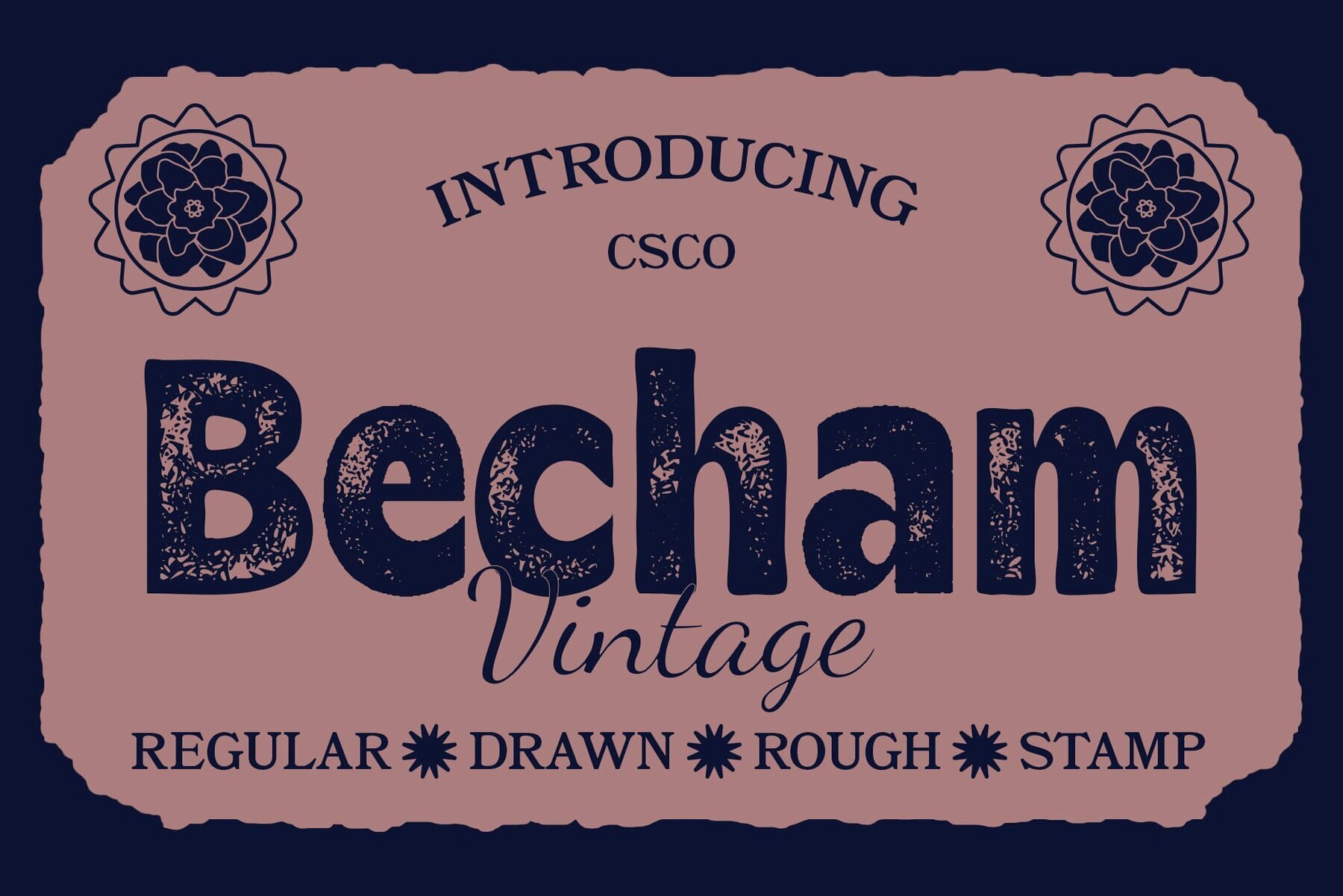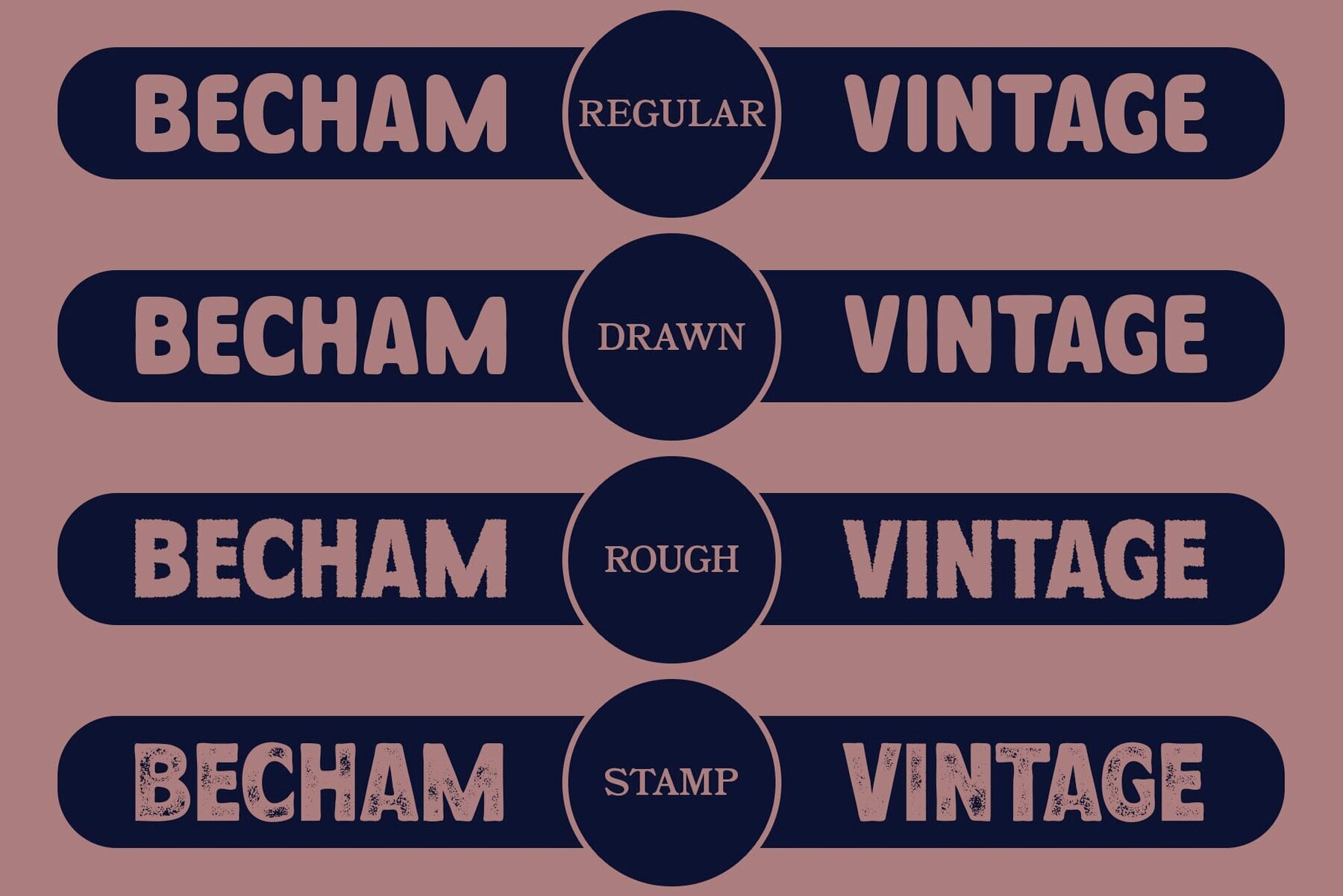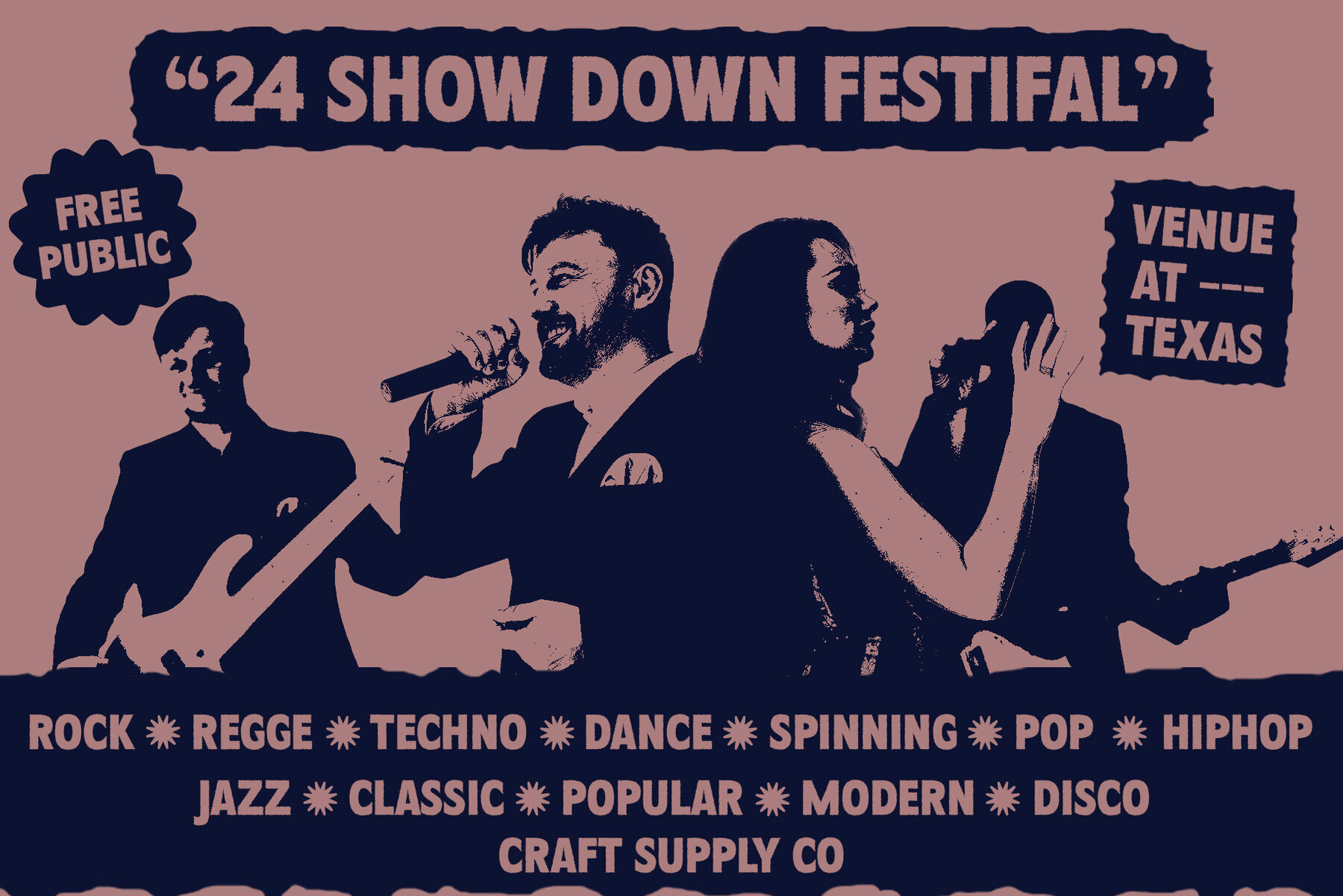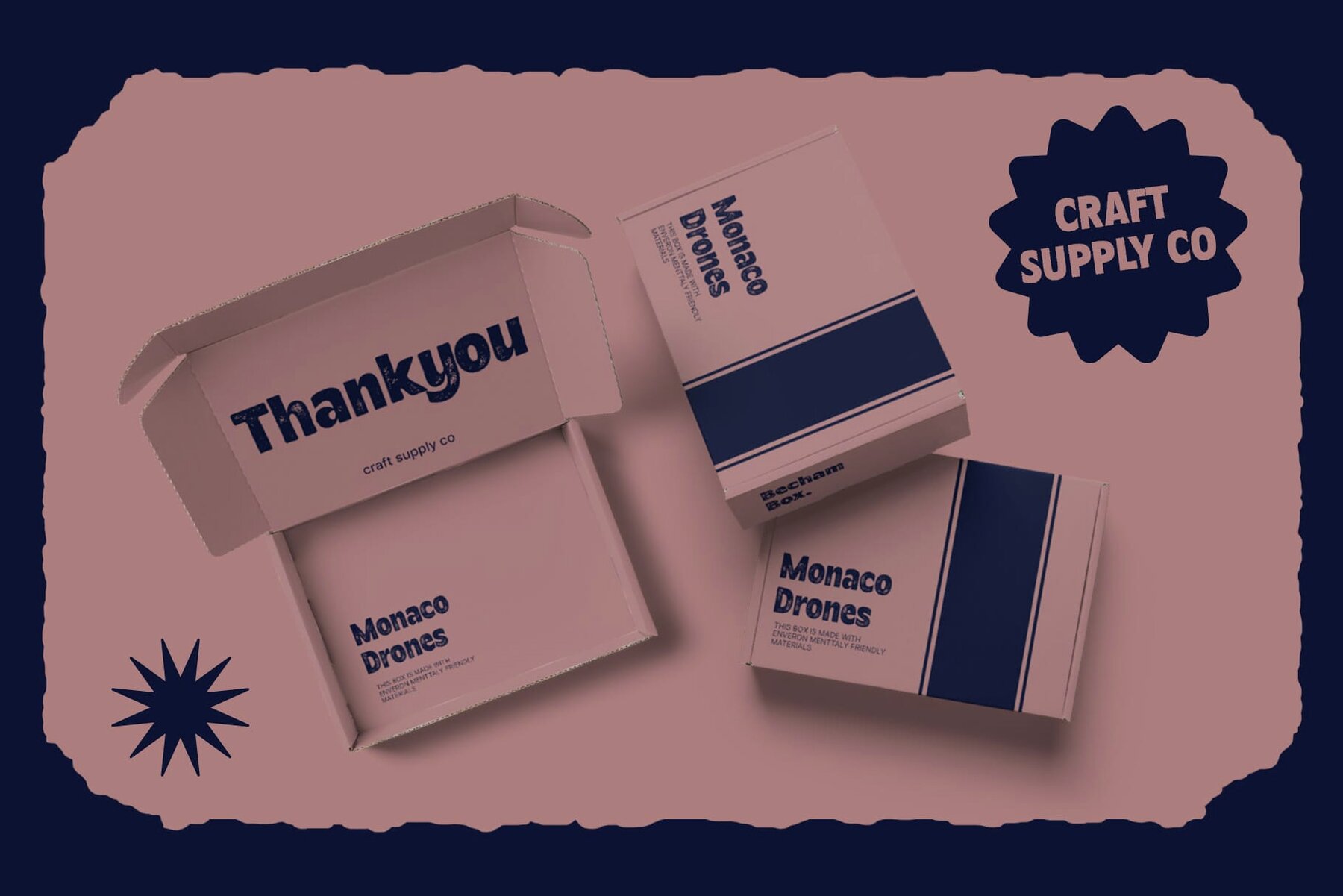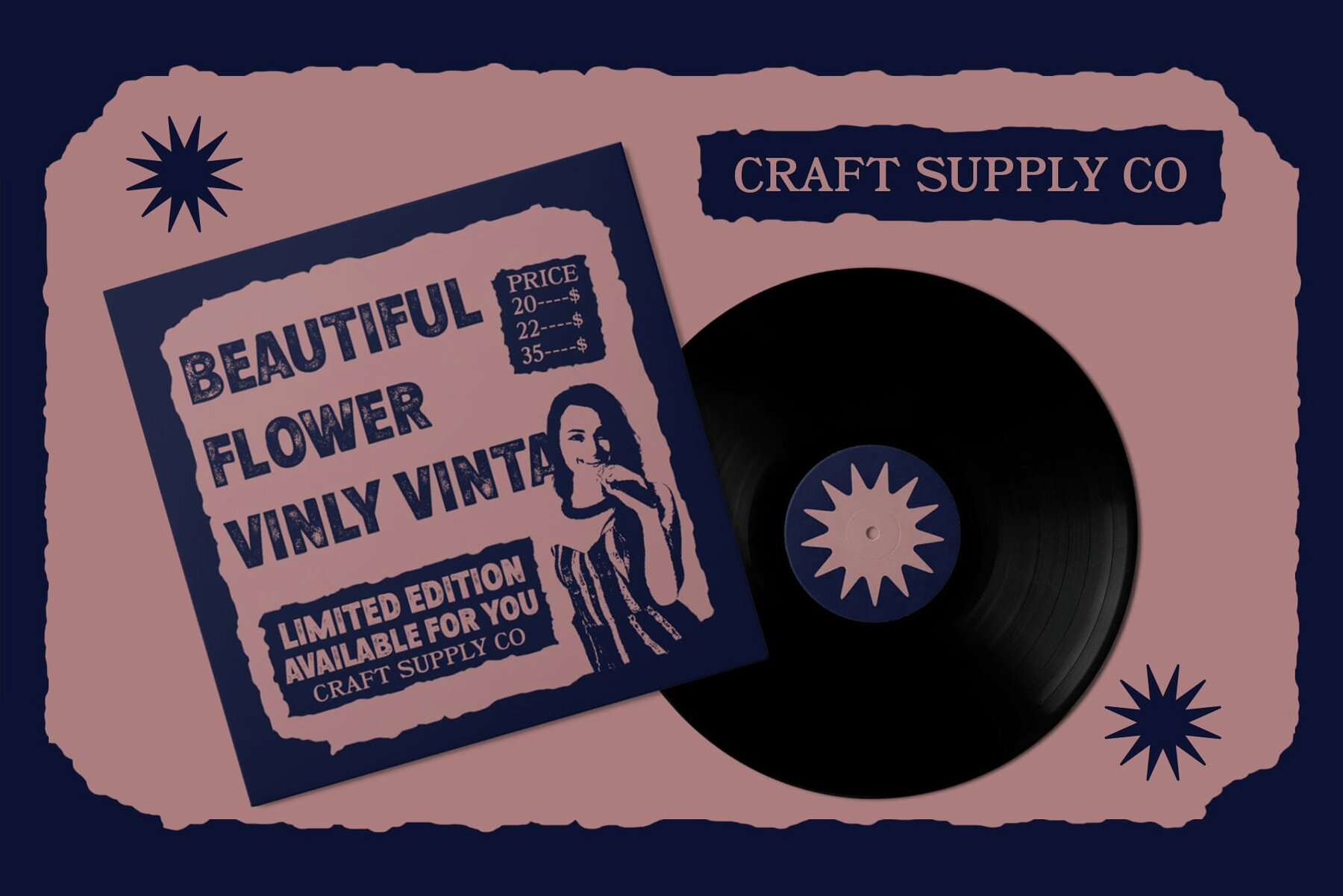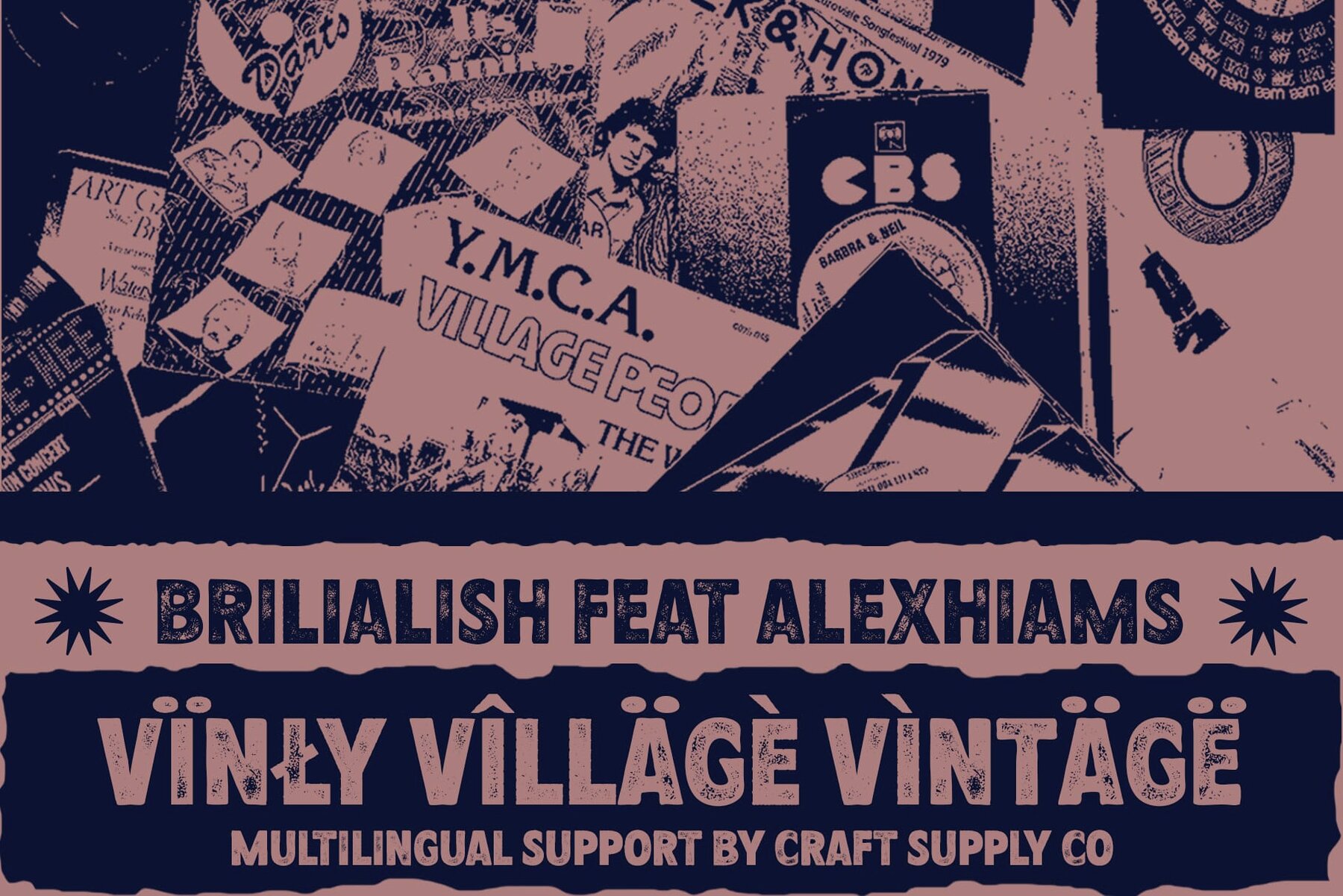
Becham Vintage Font
This bold sans-serif font offers a clean, modern look that is perfect for impactful headlines, advertising, branding projects, and posters. Its geometric shapes and strong, blocky appearance make it ideal for creating eye-catching designs in both digital and print media.